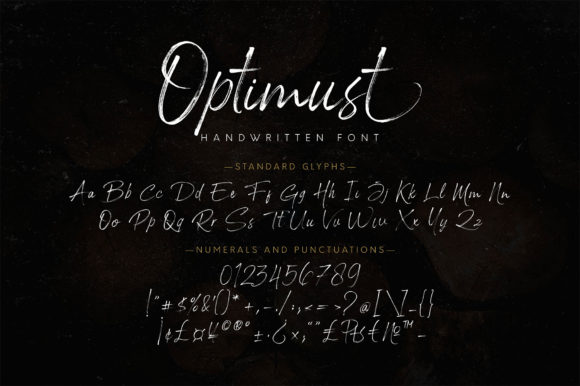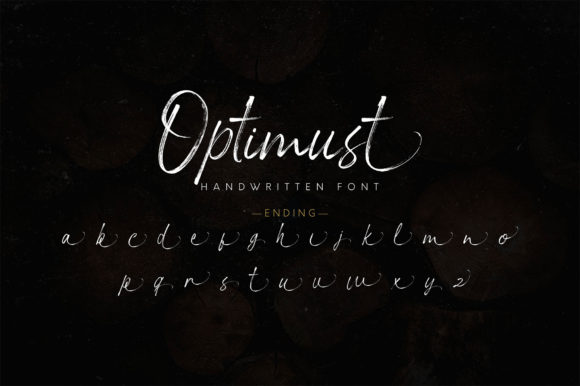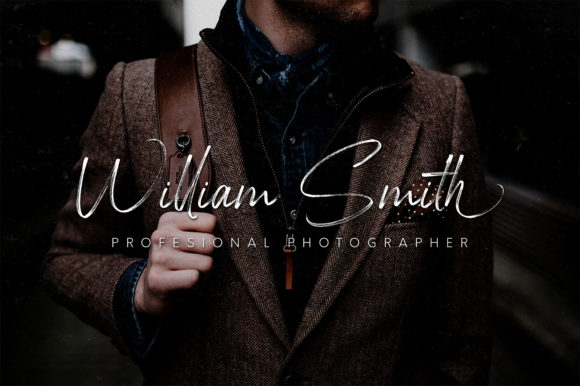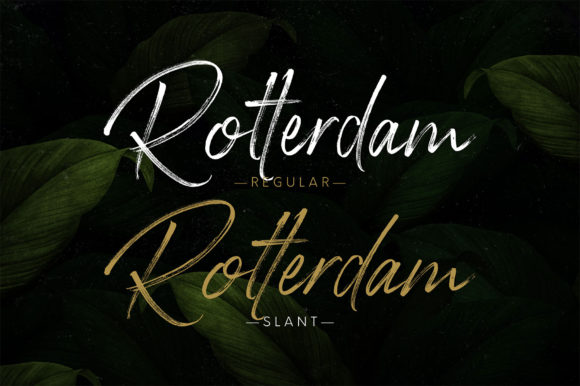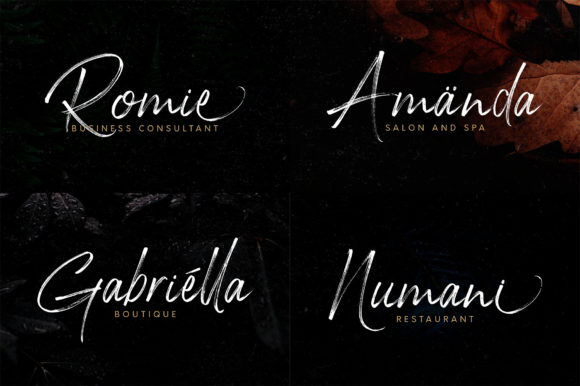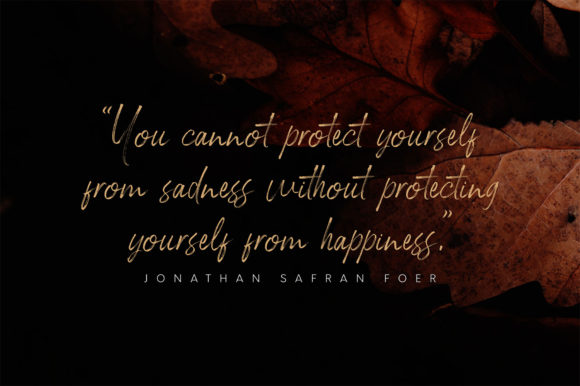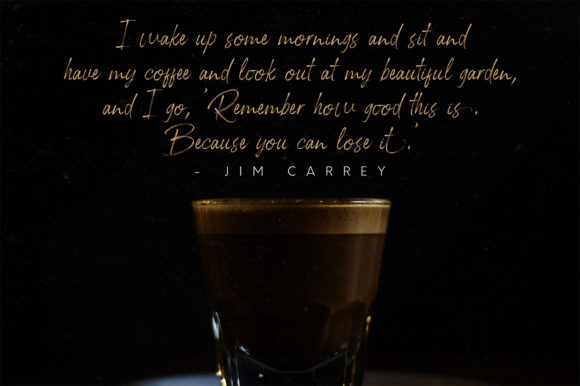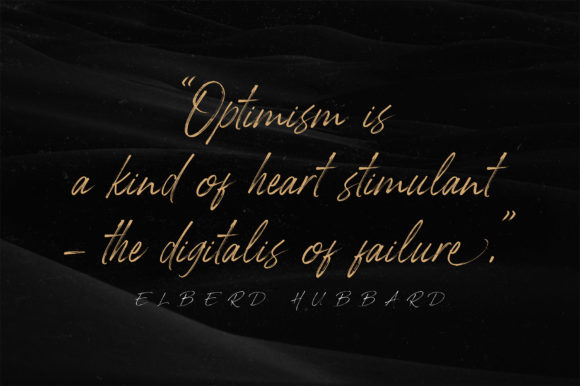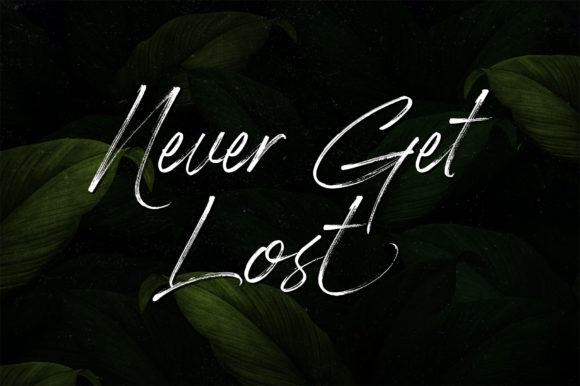
Optimust Font
About Optimust Font
Optimust is a timeless, elegant handwritten font. Fall in love with its incredibly versatile style and use it to create spectacular designs!